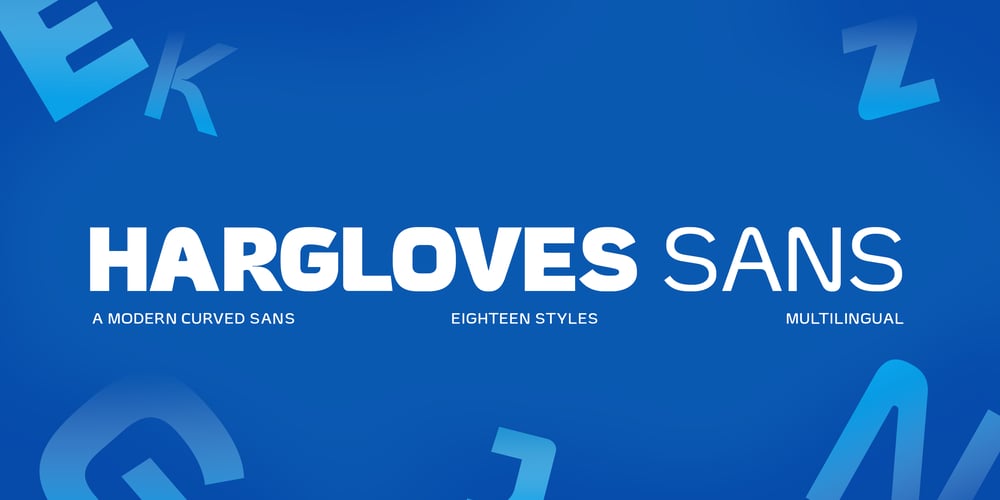
Hargloves Sans Font Family was designed by Rofiki Anas Maruf and published by Heypentype. Hargloves Sans contains 18 styles and family package options. Hargloves sans remixes between grotesque proportions and 80’ industrial inspired-typefaces. Yes, it is a major improvement from original Hargloves fonts with completely different projections. Hargloves Sans intended primarily for text, editorial or long-form text. This new design emphasized on reader joy experience when reading text without losing typeface characters.Hargloves Sans support almost all Latin script language, roughly around 356 latin language according to hyperglot analytics. This language coverage is heypentype priority to serve all possible Latin script language all over the world. The premise is simple, because it is text typeface it should cover all Latin script languages whether its popular language or not.Hargloves Sans have a higher x-height compared to Hargloves. Higher x-height will give a seamless, undistracted reading. The open counter on nearly squared proportions is Hargloves Sans main character. There’s a lot of feature coming for this typeface in the future.